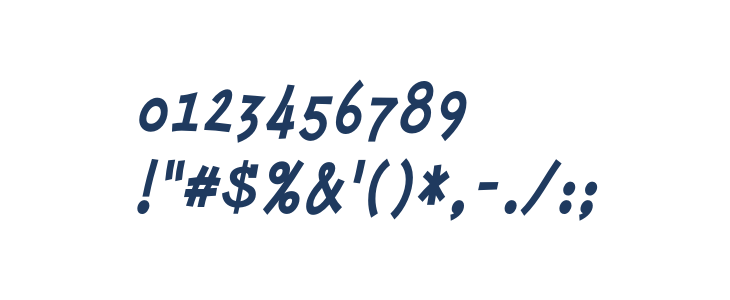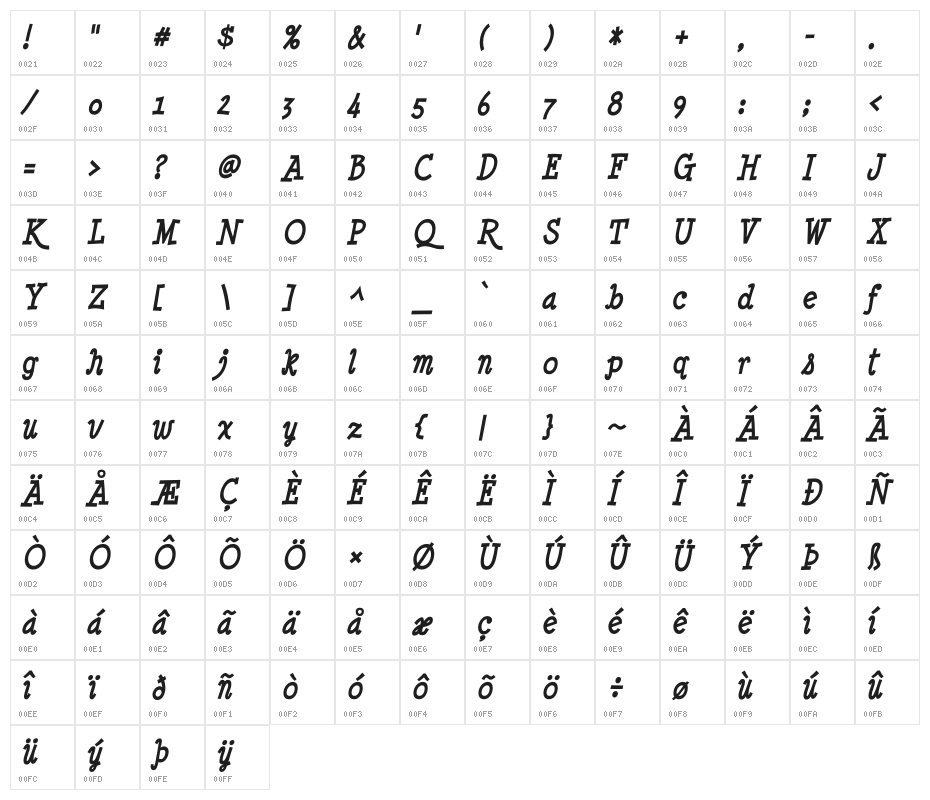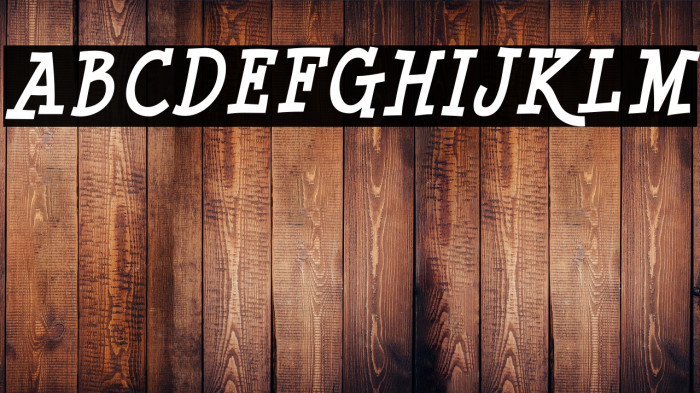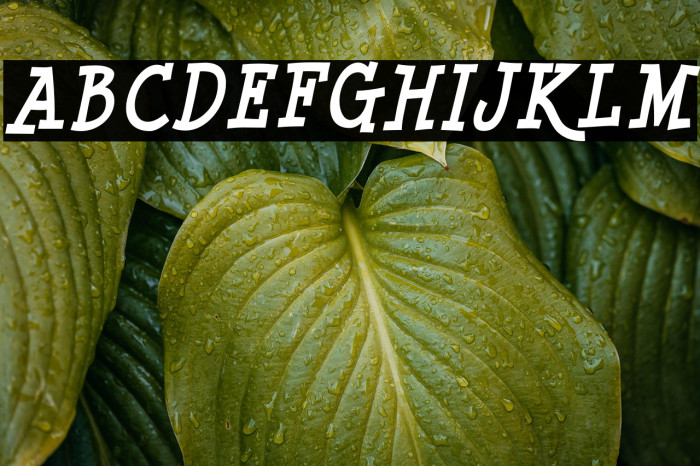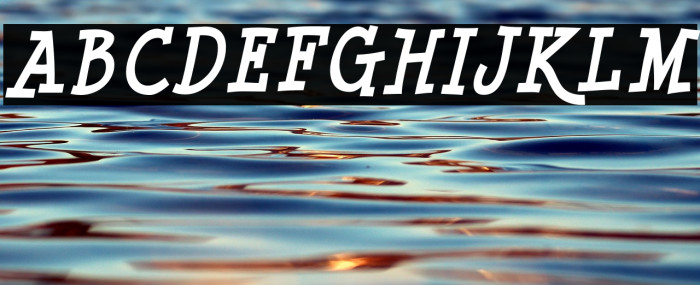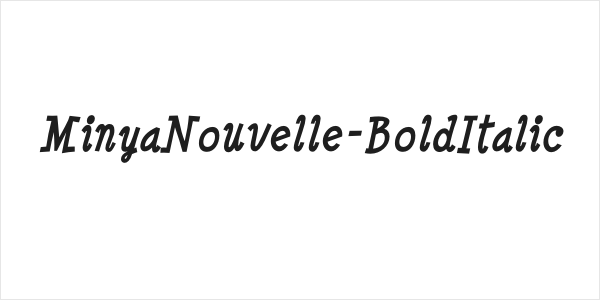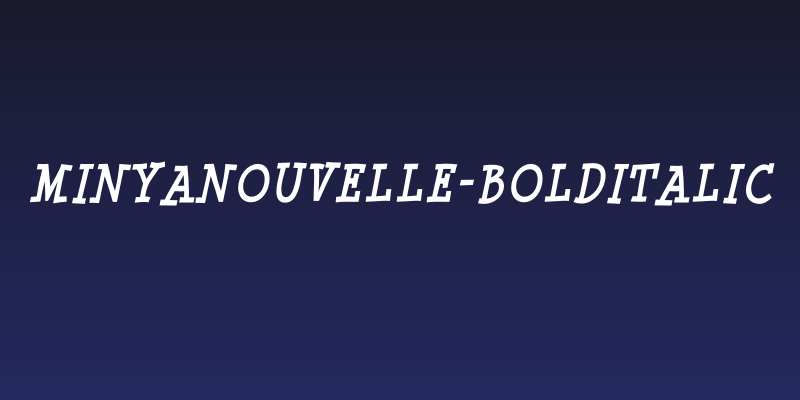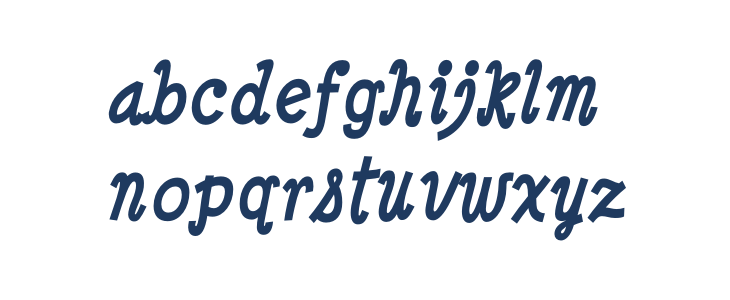
MinyaNouvelle-BoldItalic Font
MinyaNouvelle-BoldItalic Description
This font features a bold and italicized style, combining a sense of strength with dynamic movement. The uppercase letters are robust with a slight slant, giving them a forward-leaning appearance that suggests motion and energy. The lowercase letters maintain this slant, with rounded forms that add a touch of softness to the overall boldness. The numerals are consistent with the alphabetic characters, ensuring uniformity across different types of content. Special characters are designed with the same bold and italic characteristics, making them stand out while maintaining coherence with the rest of the font. This font is ideal for creating impactful and eye-catching designs.
| Proposed Projects | Ideal for branding, advertising, headlines, and any project requiring a strong and dynamic visual impact. |